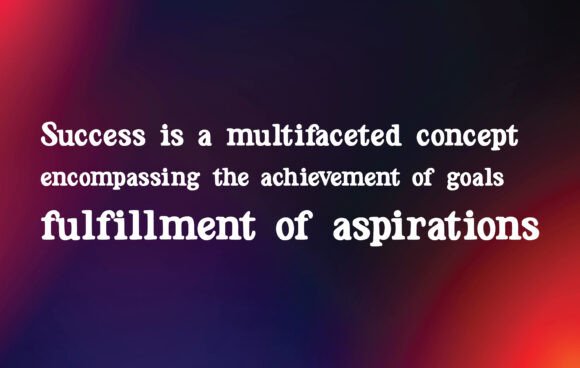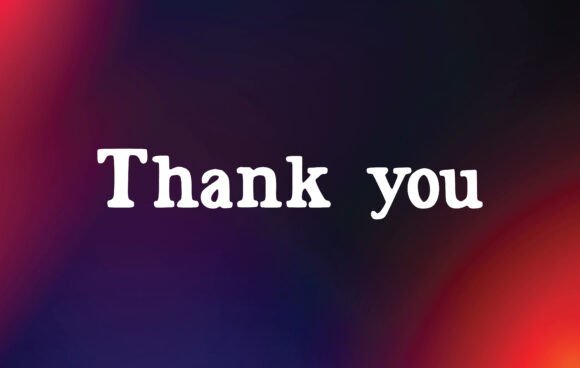
Introducing Carol Font: The Ultimate Design Companion
Are you tired of using the same old fonts in your designs? Look no further than Carol Font, the versatile and eye-catching typeface that’s perfect for bringing your creative ideas to life. With its clear and easy-to-read design, Carol Font is the perfect choice for both titles and body text, making it a go-to favorite among designers and crafters alike.
What Makes Carol Font So Special?
Carol Font is designed to be a chameleon of fonts – it can adapt to any design style or theme with ease. Whether you’re working on a magazine cover, t-shirt design, social media post, branding project, wedding invitation, or greeting card, this font fits right in with style and personality. Its versatility is unmatched, making it a valuable addition to any designer’s toolkit.
Key Features of Carol Font
- Clear and Easy to Read: Carol Font is designed to be highly legible, making it perfect for both titles and body text.
- Versatile: This font can be used in a wide range of design projects, from print to digital media.
- Eye-Catching: With its unique and stylish design, Carol Font is sure to grab attention and leave a lasting impression.
- High-Quality: Carol Font is crafted with precision and attention to detail, ensuring a high-quality design that’s perfect for professional projects.
Carol Font is a dream come true for designers and crafters who want to add a touch of personality to their work. Whether you’re a seasoned pro or just starting out, this font is easy to use and integrate into your designs. With Carol Font, you can:
- Create stunning magazine covers that grab attention
- Design eye-catching t-shirts that stand out from the crowd
- Craft engaging social media posts that drive engagement
- Develop a strong brand identity that resonates with your audience
- Make beautiful wedding invitations and greeting cards that impress
Tips for Using Carol Font
To get the most out of Carol Font, here are a few tips to keep in mind:
- Experiment with different sizes and colors: Carol Font looks great in a variety of sizes and colors, so don’t be afraid to experiment and find the perfect combination for your design.
- Pair it with other fonts: Carol Font works well with a range of other fonts, so try pairing it with a complementary font to add visual interest to your design.
- Use it consistently: To create a strong brand identity, use Carol Font consistently across all your designs and marketing materials.